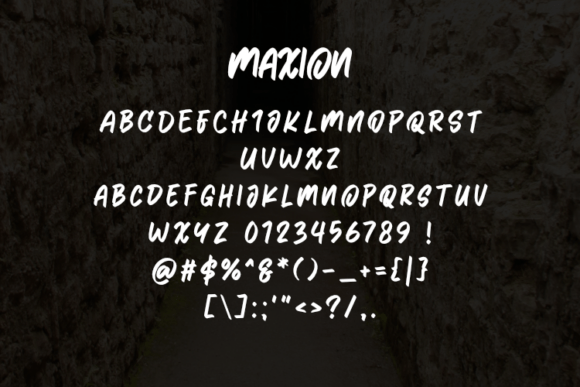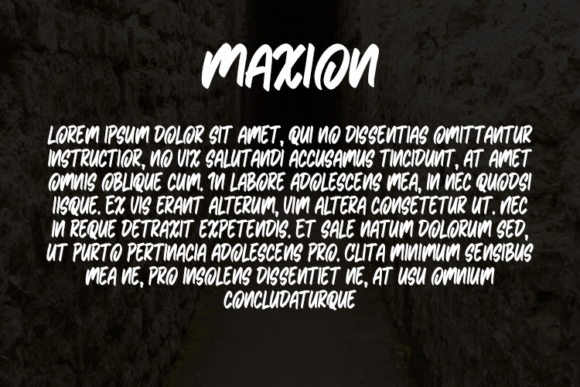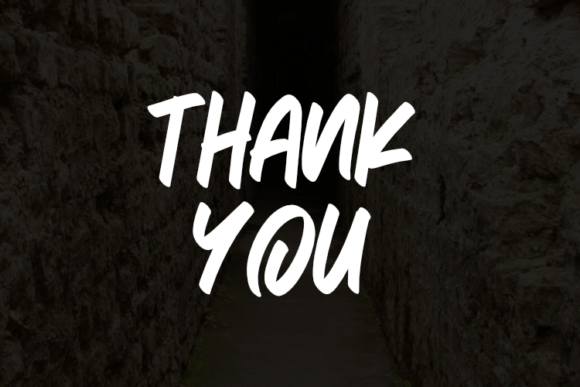
Introduction to Maxion Font
Immerse yourself in the world of Maxion, a versatile font painstakingly crafted for both clothing and product design.
Whether youโre creating edgy t-shirt graphics or elevating your product branding, Maxion seamlessly melds with any design philosophy Compatibility is never an issue since Maxion flourishes across all software platforms.
Key Features of Maxion Font